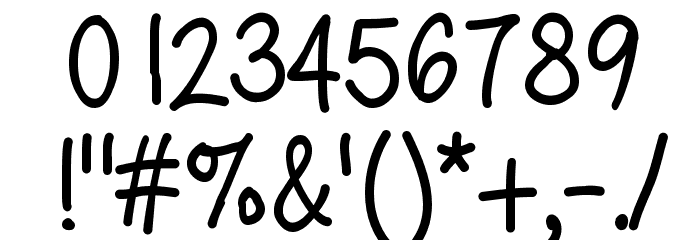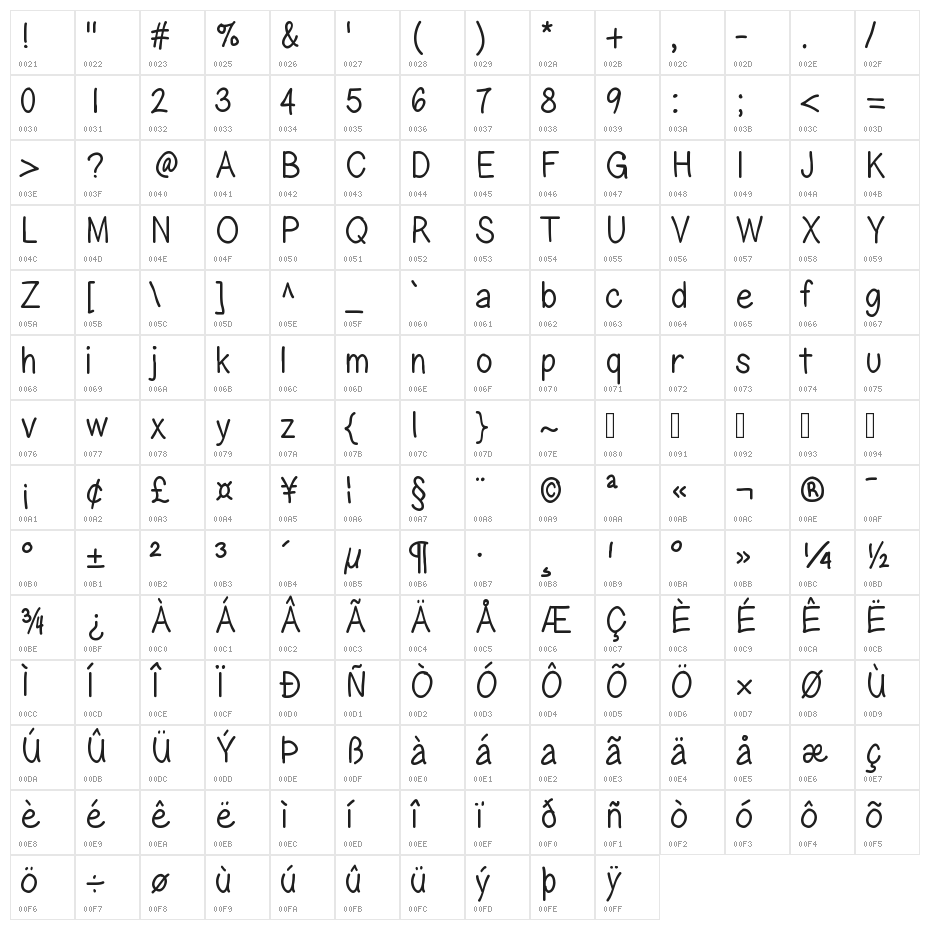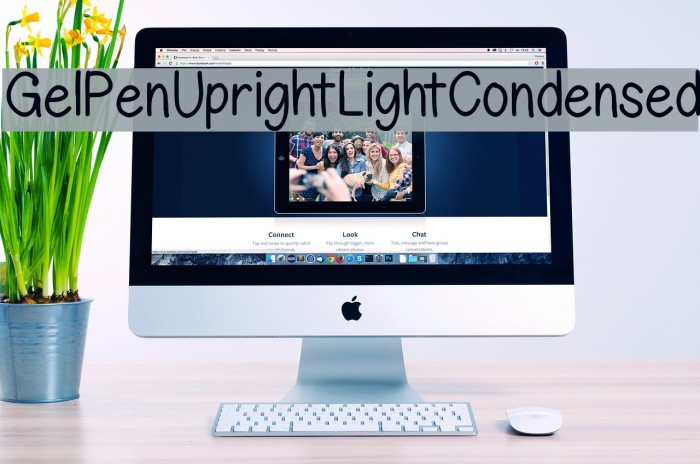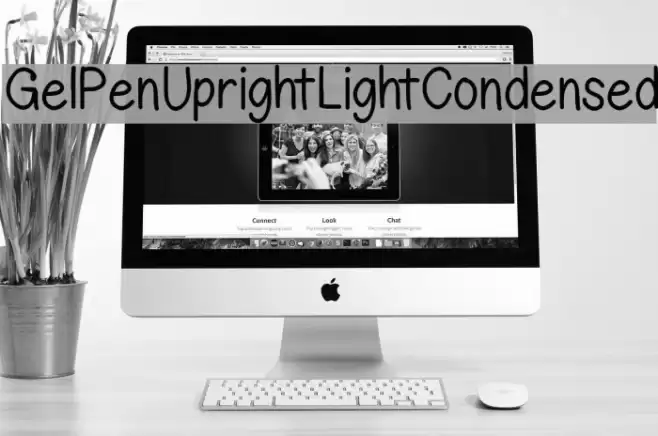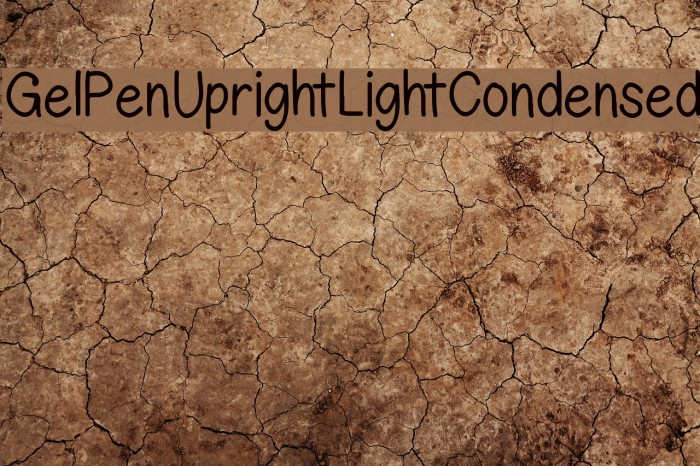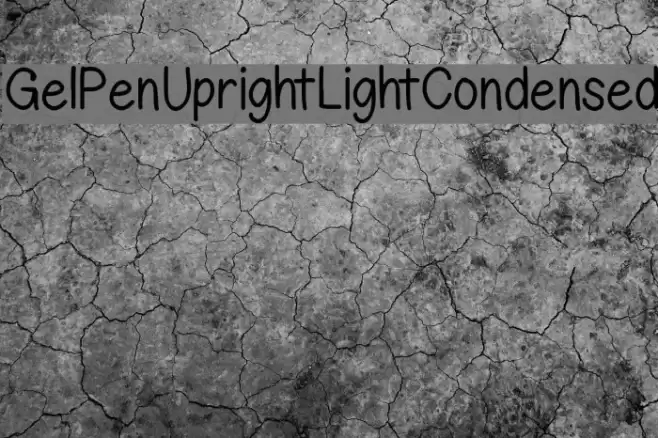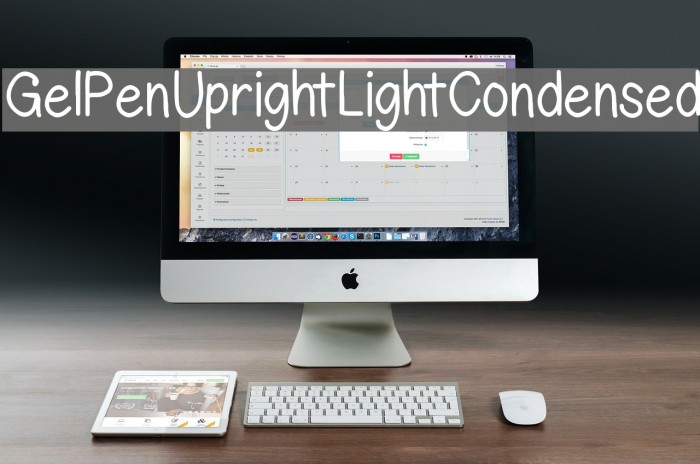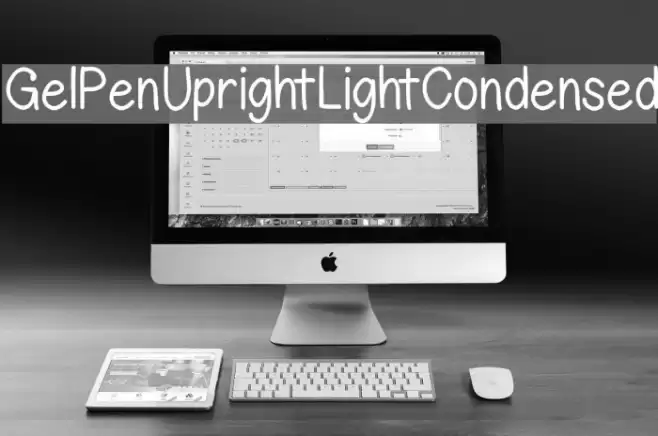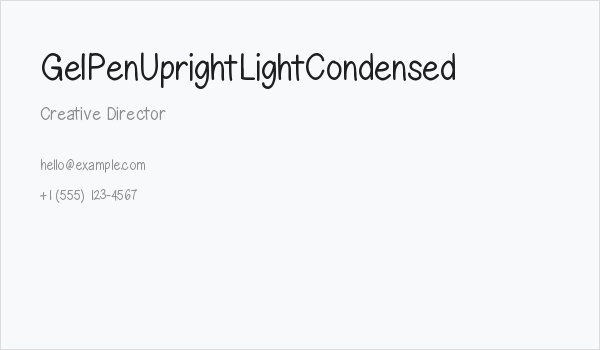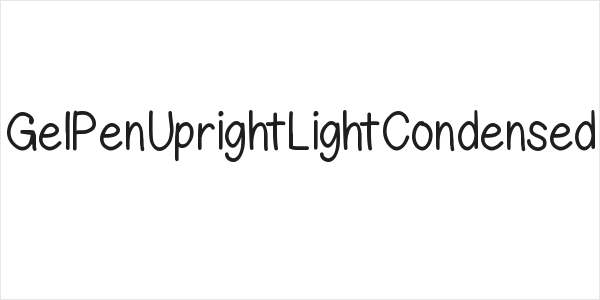
GelPenUprightLightCondensed Font
GelPenUprightLightCondensed Description
This font features a playful and casual handwritten style, reminiscent of writing with a gel pen. The characters are upright and exhibit a light weight, contributing to a friendly and approachable appearance. The condensed width allows for efficient use of space without sacrificing readability. Each letter has a smooth, rounded form with consistent stroke thickness, giving it a uniform look. The font maintains a balanced character spacing, ensuring clarity and legibility. Its informal yet neat design makes it suitable for a variety of creative projects.
| Proposed Projects | Ideal for greeting cards, children's books, casual invitations, and personal branding. |